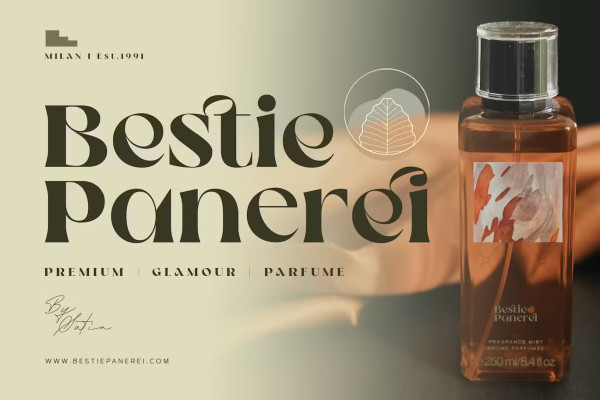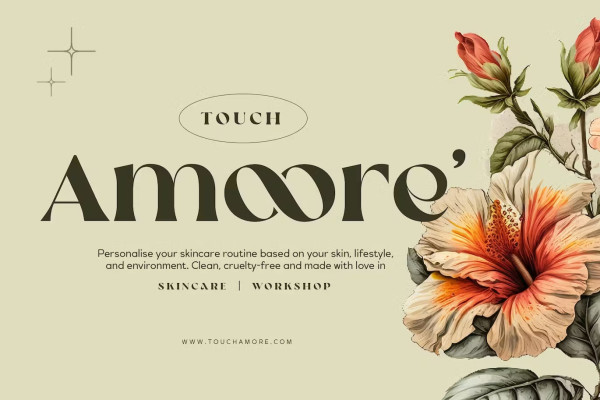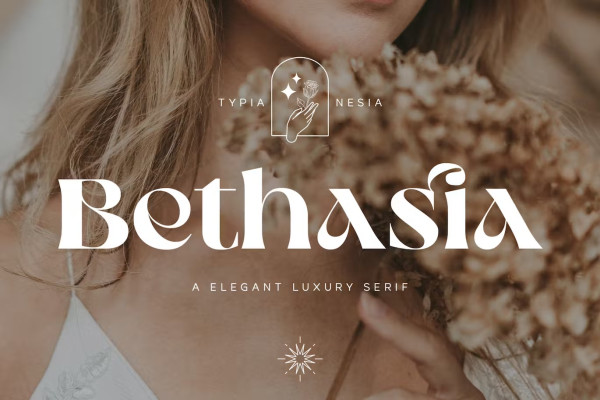
Bethasia Font
Bethasia Font is a modern and stylish contrasting Serif font that exudes classic beauty and sophistication. With its clean and refined design, this font is perfect for various applications including wedding invitations, branding, logos, editorial designs, and more. The Bethasia Font strikes a harmonious balance between thick and thin strokes, creating a striking contrast that adds an extra touch of elegance to your designs. Her expertise is in capturing the essence of timeless beauty and enhancing any project with her refined and elegant aesthetic.
Its unique ligatures, optional ligatures, and variations give it a distinct and sophisticated look that sets it apart from other fonts. Let Bethasia Font set the tone for your special day with her romantic and elegant style